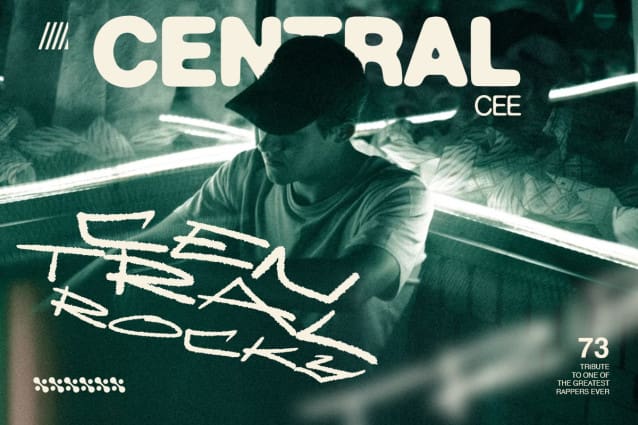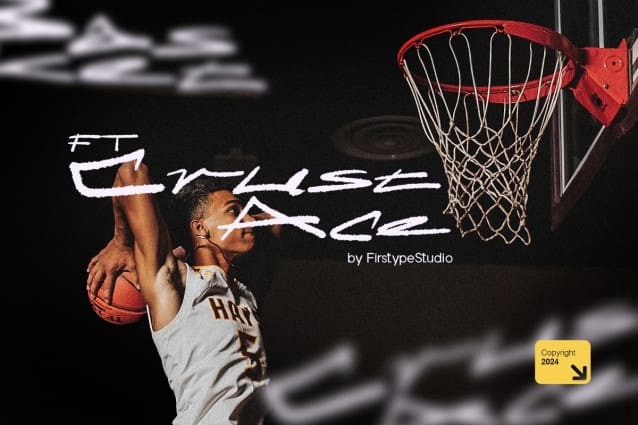
FT Crust Ace Font
FT Crust Ace Font, perfectly fit for branding, logo, wedding things, greeting cards, fashion, lookbook, marketing promotion, anytime you want to look fancy elegant but still casual.